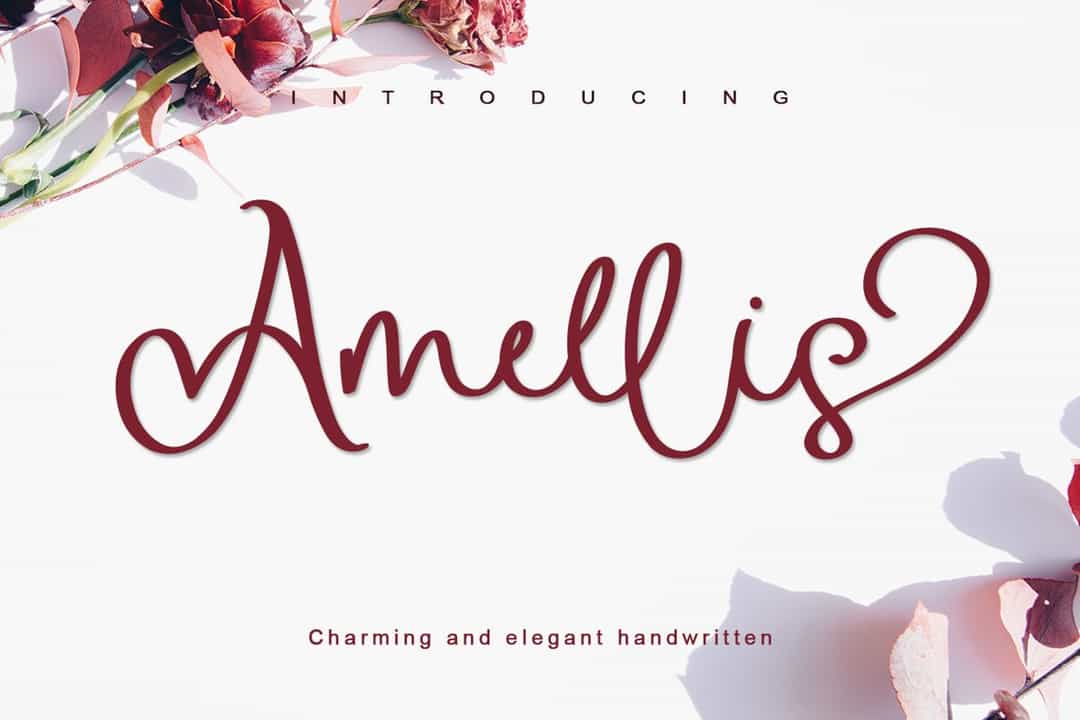
Amellis is graceful handwritten font with beautiful feel, suitable for any of your works. Appreciate the uniqueness and the simplicity of the design and create beautiful art pieces out of it! Amellis can be used in brand logo and symbols, wedding designs, social media posts, and advertisements, packaging labels, product designs photo, or any other work that involves handwriting.